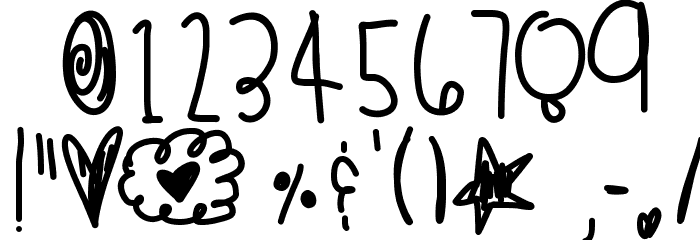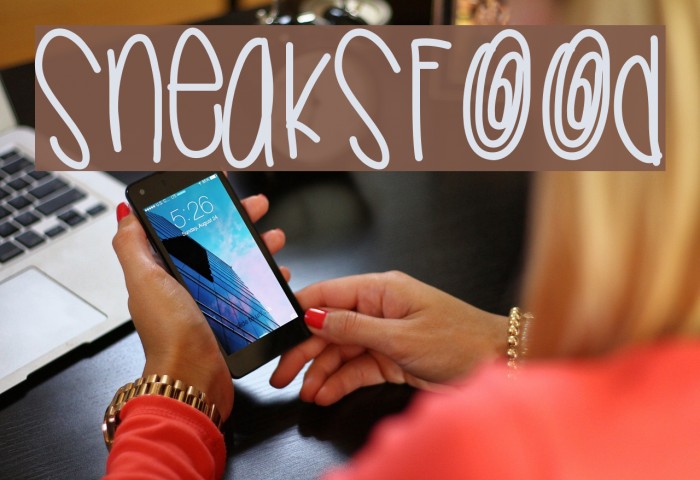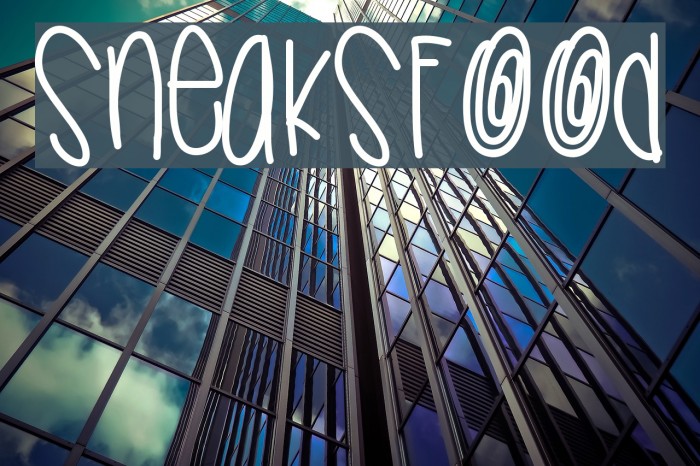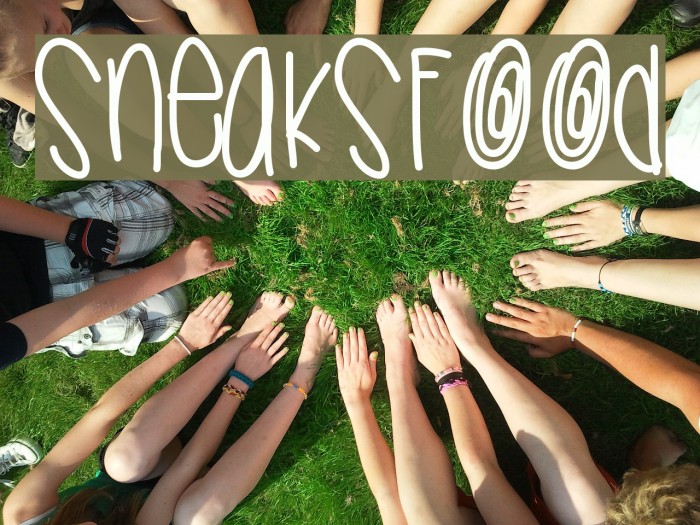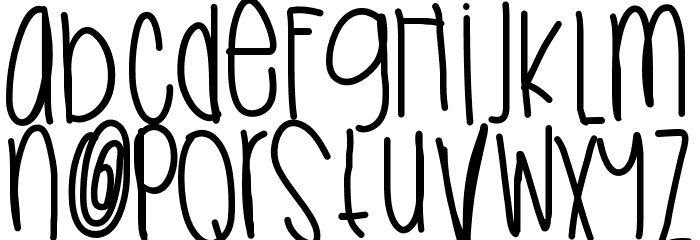
Sneaksfood Font
This playful and whimsical font features a hand-drawn style with elongated, slightly irregular letterforms that give it a casual and friendly appearance. The uppercase and lowercase letters maintain a consistent height, while the numbers and special characters are creatively designed with unique embellishments, such as swirls and stars. The font's strokes are bold and consistent, providing a strong visual presence. Its quirky and artistic nature makes it ideal for projects that require a fun and informal touch.
A playful, hand-drawn font with bold, whimsical characters.
• Proposed Projects: Ideal for children's books, greeting cards, playful branding, and creative posters.
• Category: Handwritten
• Bold: Yes
• Italic: No
• Weight: Bold
• Width: Normal
• Character Spacing: Normal
• Contrast: Low
• Overall Style: Decorative
• Use Case: Logos, Headlines, Posters